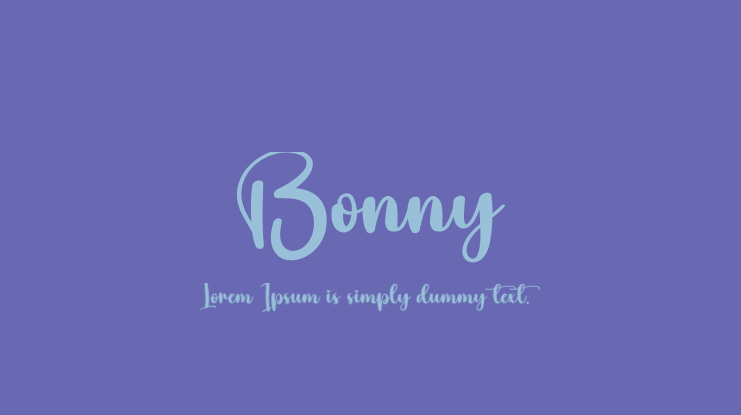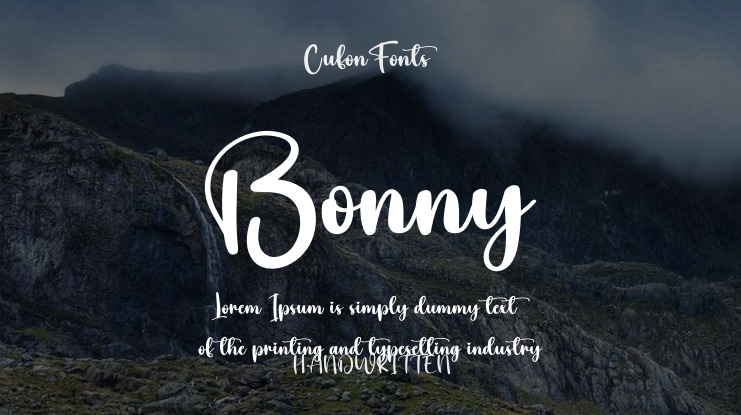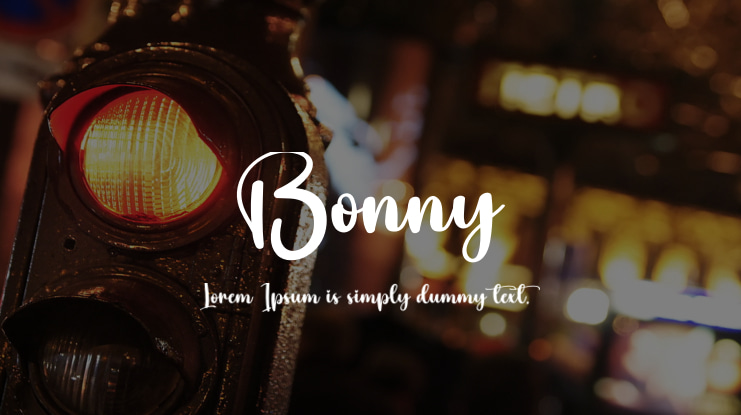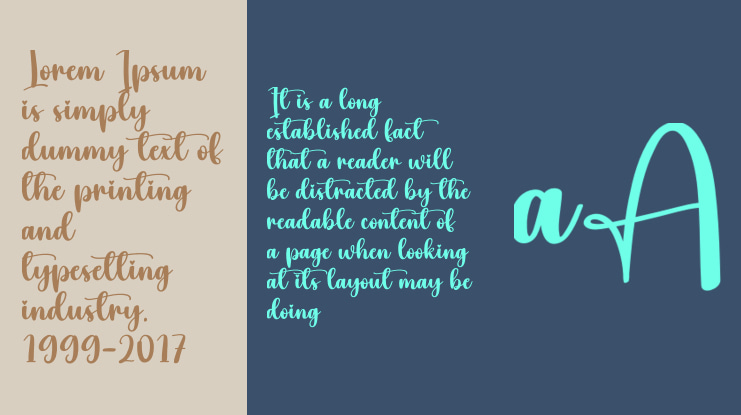
Our latest collection of stylish letters is perfect for various purposes such as wall displays, wedding invitations, social media logos, advertisements, product packaging, design projects, labels, photography, watermarks, invitations, stationery, and any project that requires elegant handwriting.